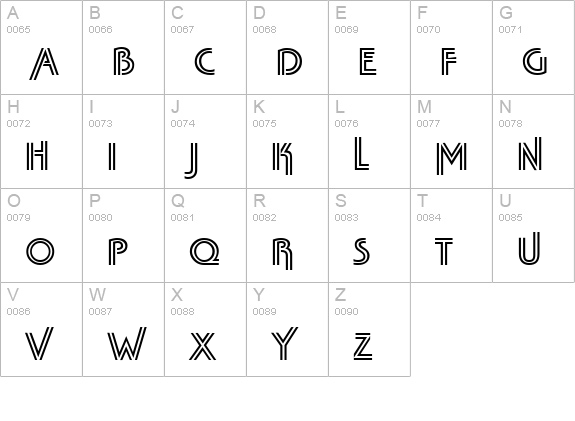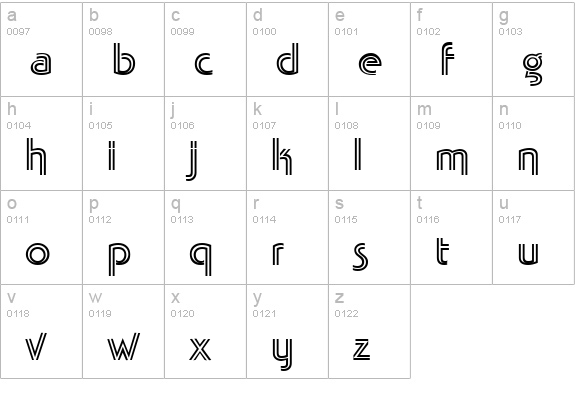
TabathaFresco Regular is the standard, neutral variant in the TabathaFresco typeface family \xE2\x80\x94 well suited to general body text, paragraphs, and standard typographic work.
TabathaFresco Regular is a sleek and modern font that exudes elegance and sophistication. With its clean lines and graceful curves, this typeface is perfect for adding a touch of class to any project. Whether you're designing a logo, creating a poster, or crafting a stylish invitation, TabathaFresco Regular is sure to make a lasting impression. This font offers a wide range of versatility, making it suitable for both headlines and body text. Its balanced proportions and legible letterforms ensure optimal readability across various mediums, from print to digital. One of the standout features of TabathaFresco Regular is that it is freely available to download at FontsMarket.com. This means that you can enhance your designs with this exceptional font without any cost. By offering this font for free, the creators of TabathaFresco Regular have made it accessible to a wide audience, allowing designers and creatives of all backgrounds to benefit from its beauty and functionality. So, whether you're a professional designer looking for a new go-to font or an amateur enthusiast experimenting with typography, TabathaFresco Regular is the perfect choice. Download it today at FontsMarket.com and elevate your designs with this stunning and freely available typeface.